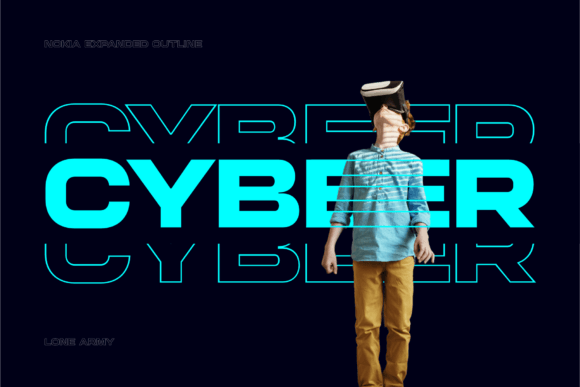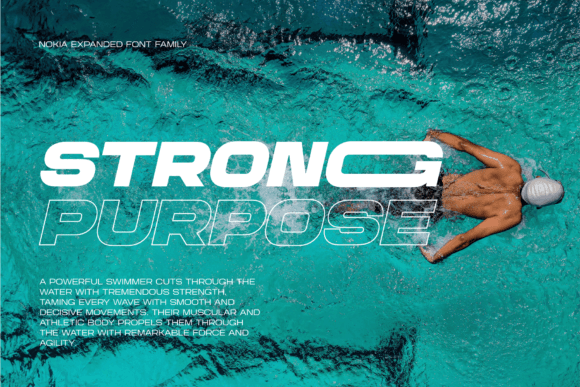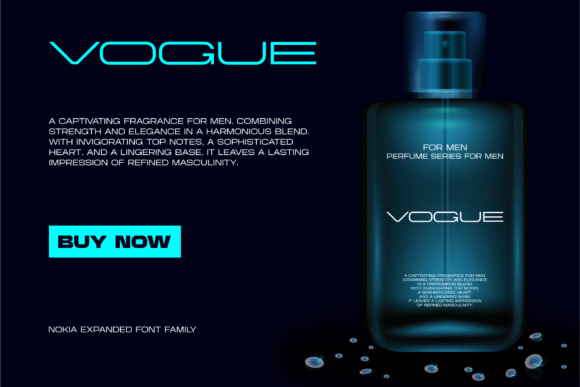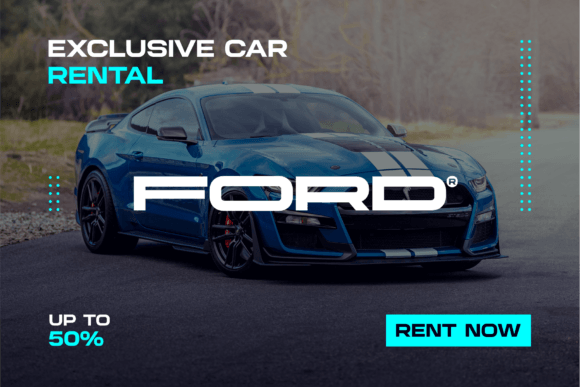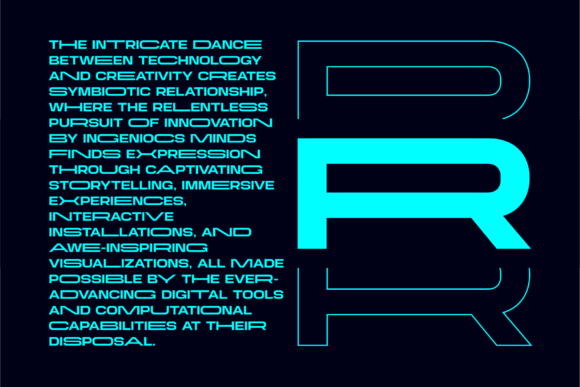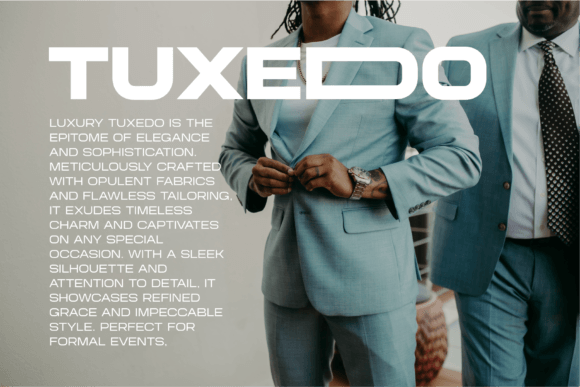
Designing with Impact: The Power of Nokia Expanded Font
As a designer, you’ve probably found yourself staring at a blank canvas, trying to bring a creative project to life. The moment of inspiration hits, and you envision the perfect combination of colors, shapes, and typography – but it’s the font that makes or breaks the design. That’s where Nokia Expanded Font comes in – a bold and expansive font designed to capture attention and leave a lasting impression.
With its clean lines, geometric forms, and expanded proportions, Nokia Expanded Font embodies the essence of reliability and modernity, making it an ideal choice for various applications, including branding, advertising, and display graphics. Whether you’re working on a high-quality design project with a transparent background or simply need a free download to add some flair, Nokia Expanded Font is a valuable resource for designers who want to make a statement.
Nokia Expanded Font
- Unique pixel-perfect design, ideal for retro-themed creative projects
- Each character is carefully crafted to ensure precise alignment and a cohesive visual experience
Honest Review: Nokia Expanded Font
As a designer, I’m always on the lookout for high-quality fonts to enhance my creative projects. Recently, I had the chance to try out the Nokia Expanded Font, and I must say it’s been a game-changer.
- ✨ Customizable: Nokia Expanded Font offers a range of styles and sizes, making it perfect for various design projects.
- ✨ High-quality: The font is crisp and clear, even when used on a transparent background.
- ⚠️ Limited use: While Nokia Expanded Font is perfect for digital designs, it may not be the best choice for print materials.
- ⚠️ Not ideal for complex text: The font can get a bit messy when used for long blocks of text, so be sure to keep it concise.
Overall, I’m really impressed with Nokia Expanded Font. It’s a fantastic addition to any designer’s toolkit, and its free download makes it a must-have for any creative project. Give it a try and see for yourself!
Nokia Expanded Font
Tips for Getting the Most Out of Nokia Expanded Font
For optimal results, use the Nokia Expanded Font on a transparent background to create a clean and modern design. You can also experiment with different font sizes and colors to add visual interest to your project.
The Nokia Expanded Font is suitable for various design projects, including logos, posters, and infographics. It’s also a great choice for creating a retro or futuristic look in your design.